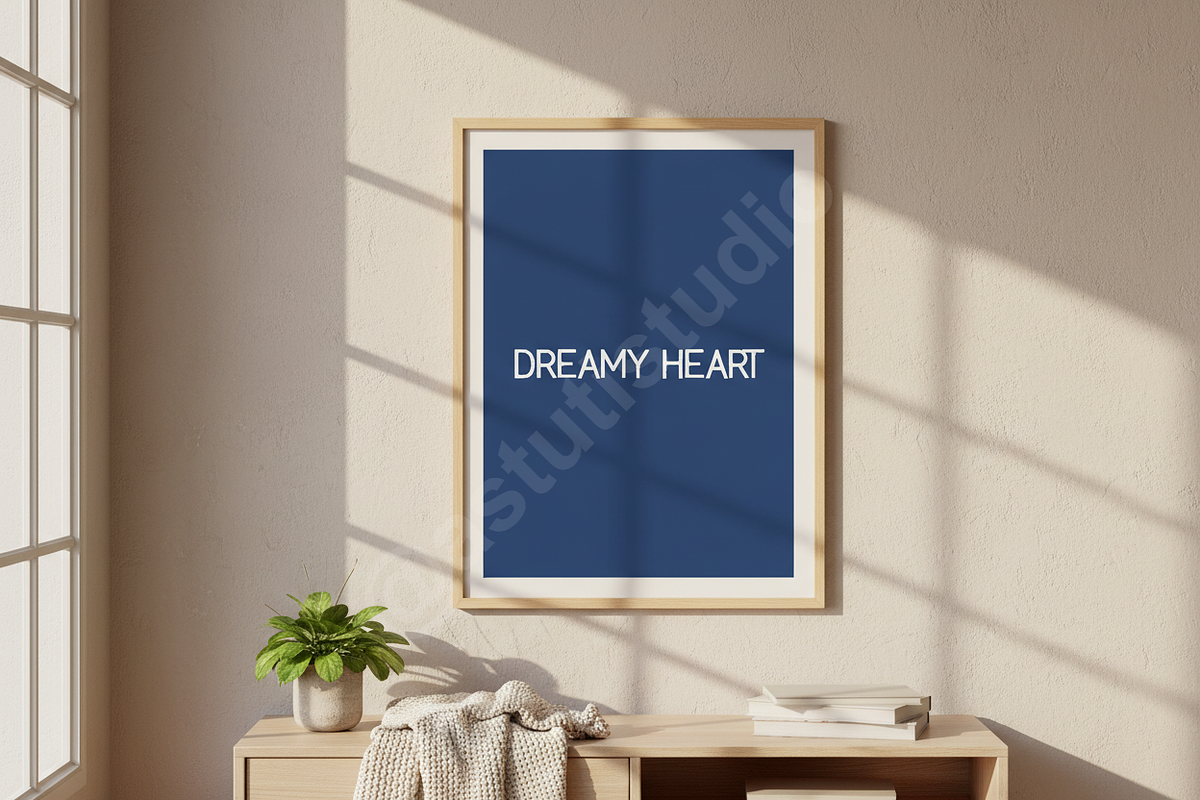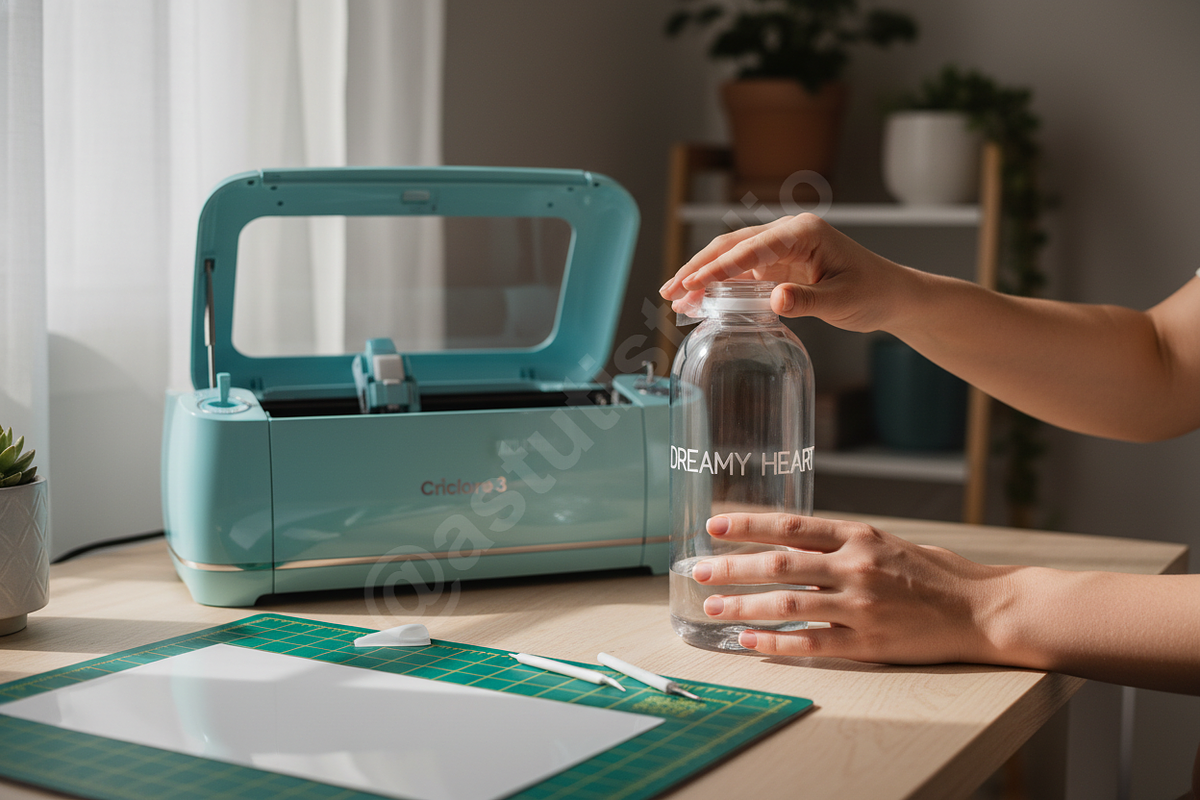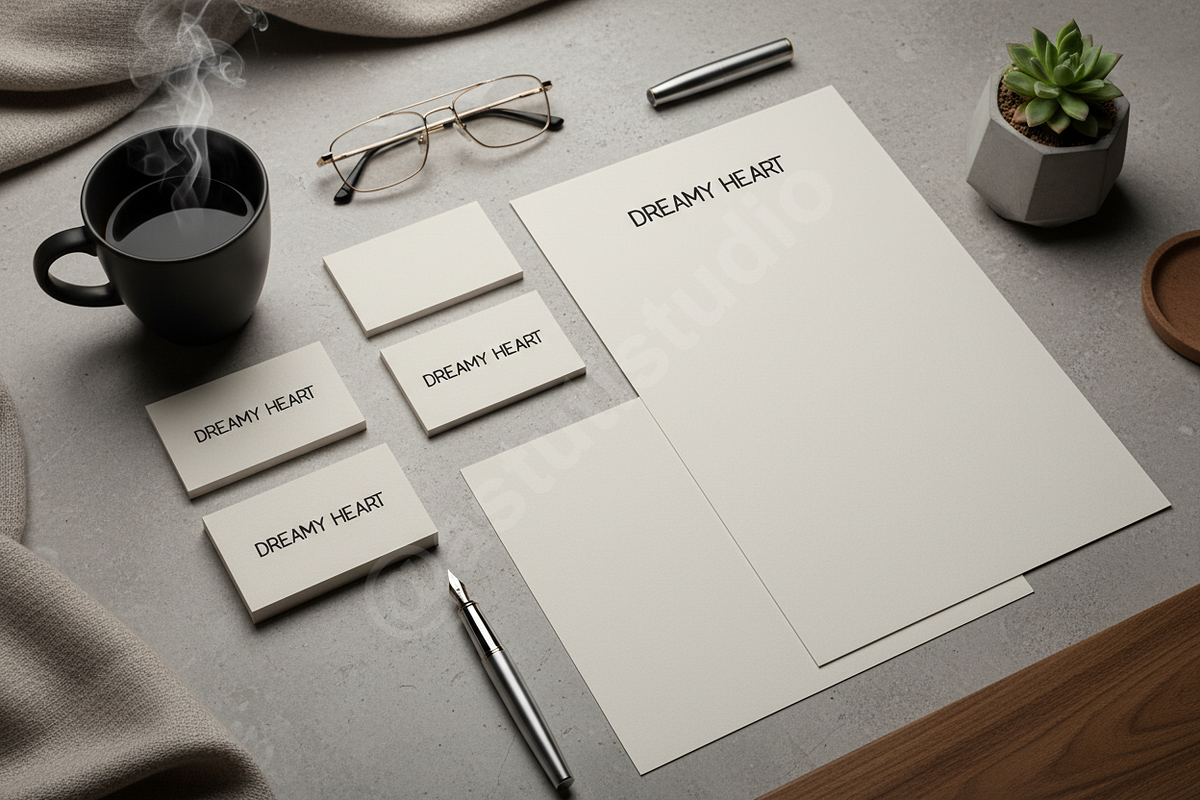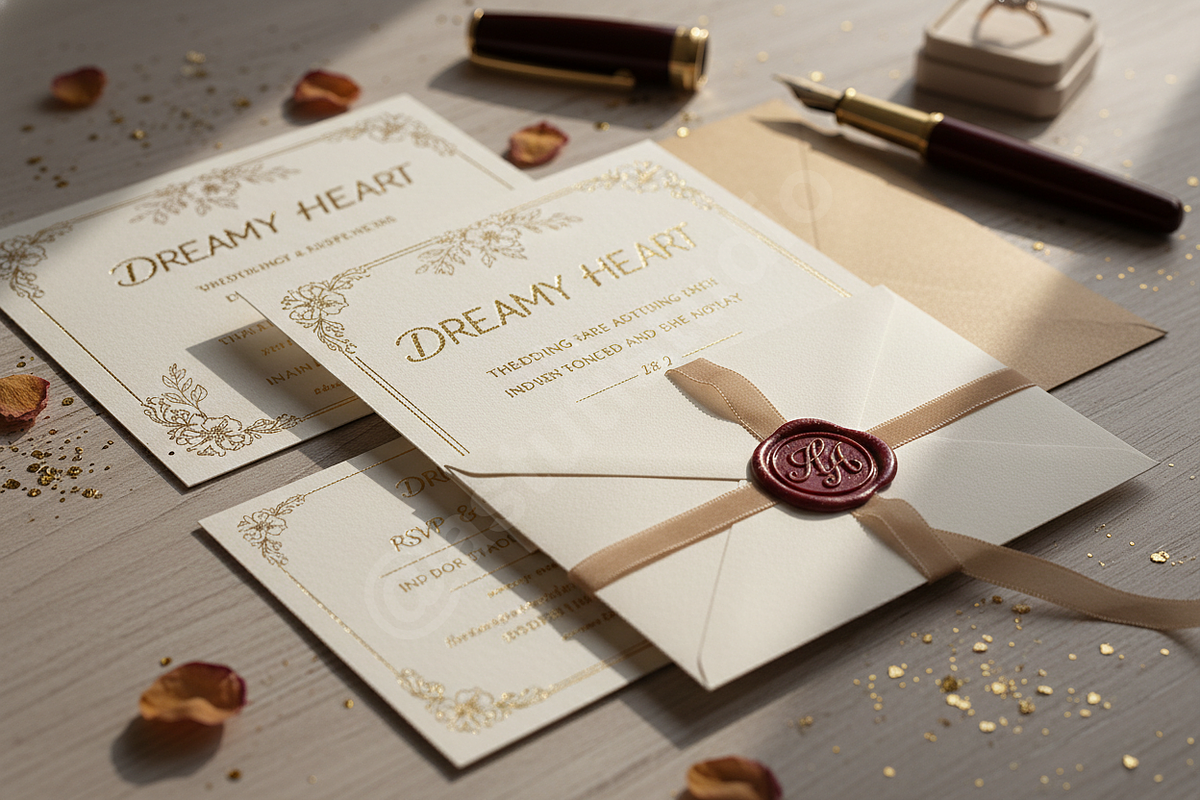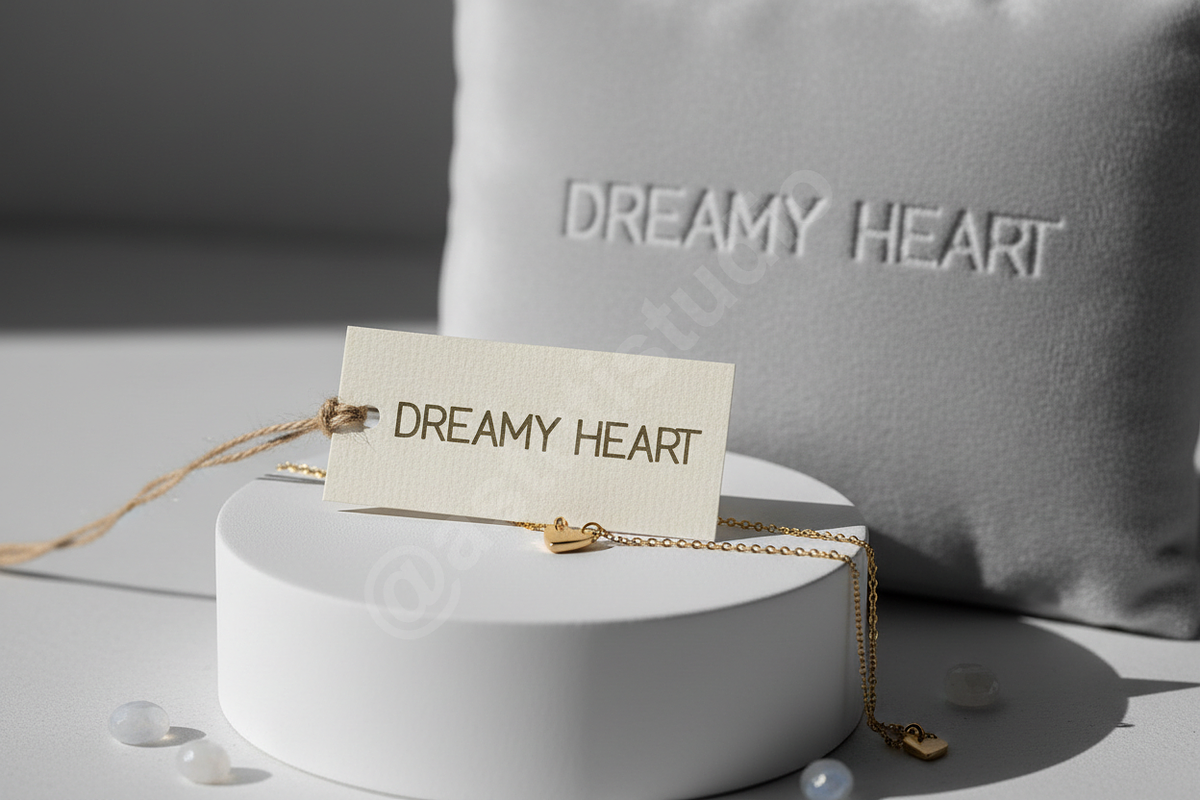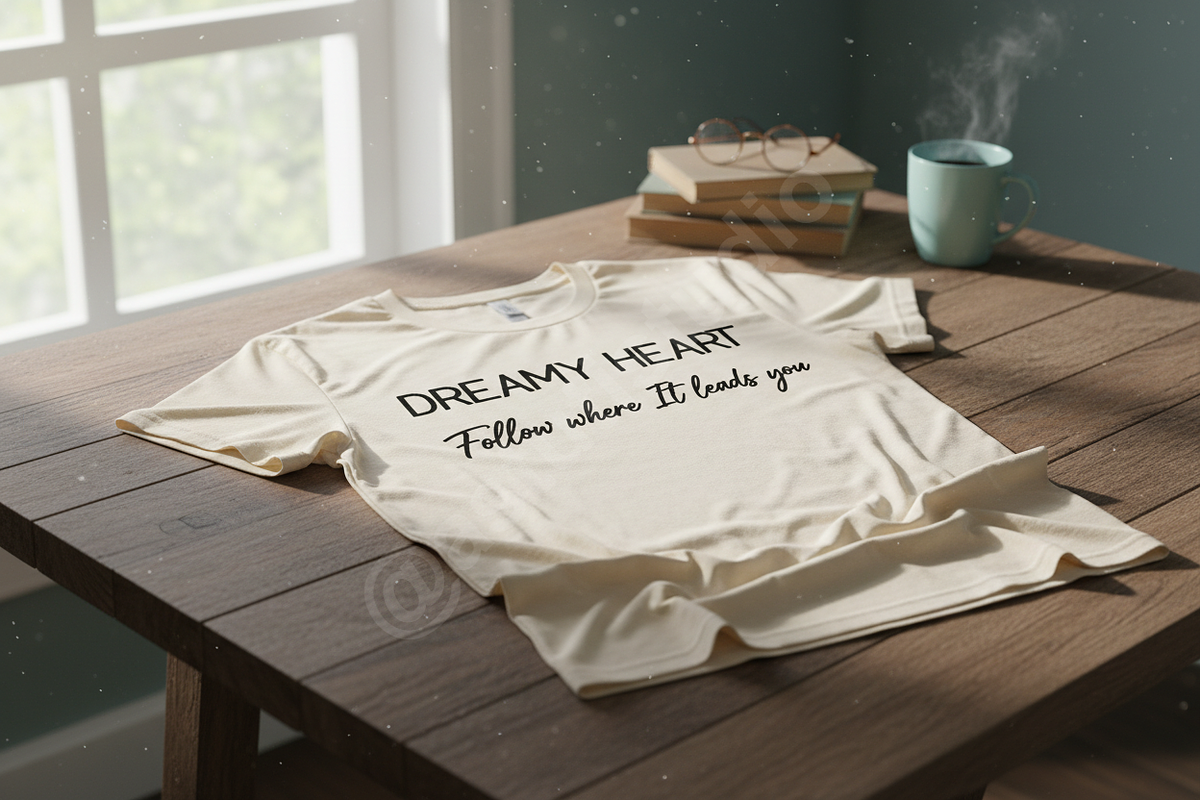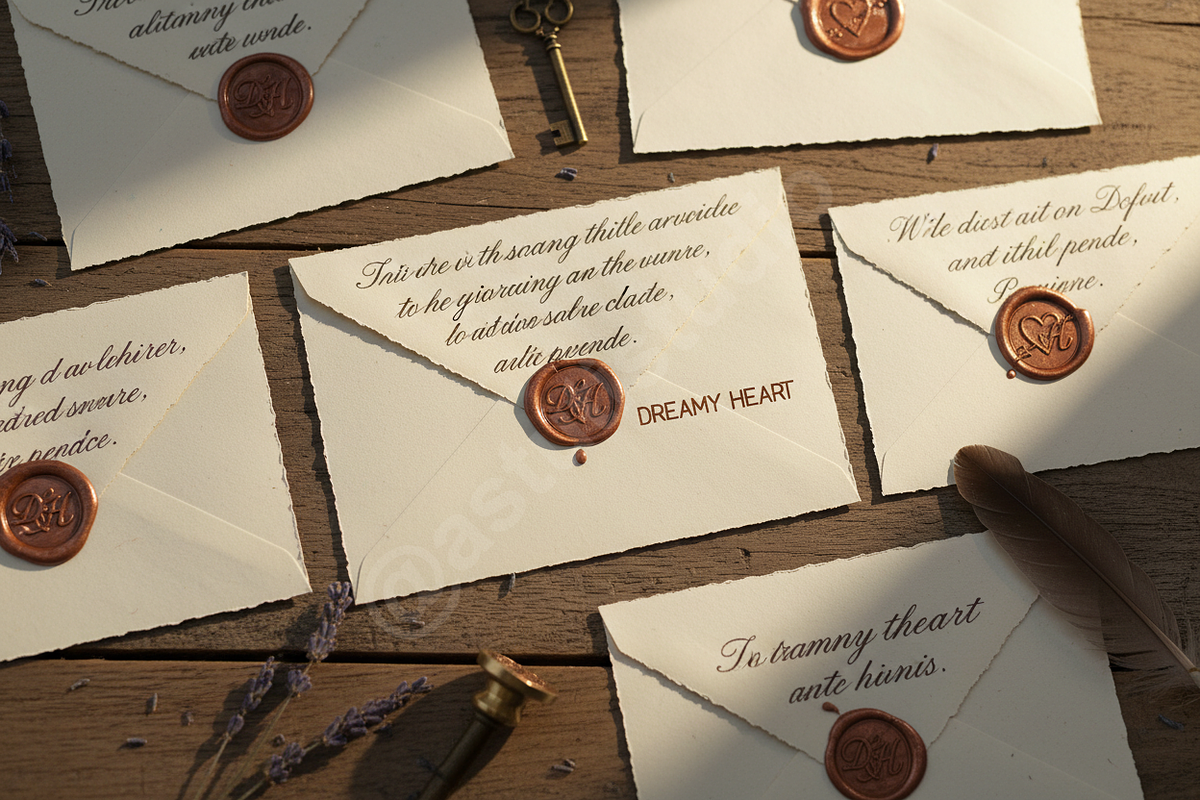
Fevepu - Elegant Luxury Display Seri
Fevepu is a meticulously crafted modern serif typeface designed for ultimate sophistication. Drawing inspiration from classic haute couture and contemporary European aesthetics, Fevepu offers sharp terminals, confident strokes, and perfect balance. It is the definitive choice for designers seeking to elevate projects from beautiful to truly luxurious. Fevepu is engineered to perform impeccably across digital and print media, making it the essential asset for premium studios.
- Timeless Elegance: Perfect for high-end luxury goods, fashion, beauty campaigns, and fine art.
- Optimized Readability: Excellent legibility for both commanding display headers and smaller editorial body text.
- Extensive Ligatures & Alternates: Includes a comprehensive set of stylistic alternates and discretionary ligatures to customize and enhance typographic flow.
- Multi-Language Support: Full support for 90+ Latin-based languages, ensuring global appeal.
- Versatility: Ideal for prestigious brand identity packages, magazine layouts, elegant web typography, and compelling social media visuals.
- Uppercase & Lowercase Characters
- Stylistic Alternates and Standard Ligatures